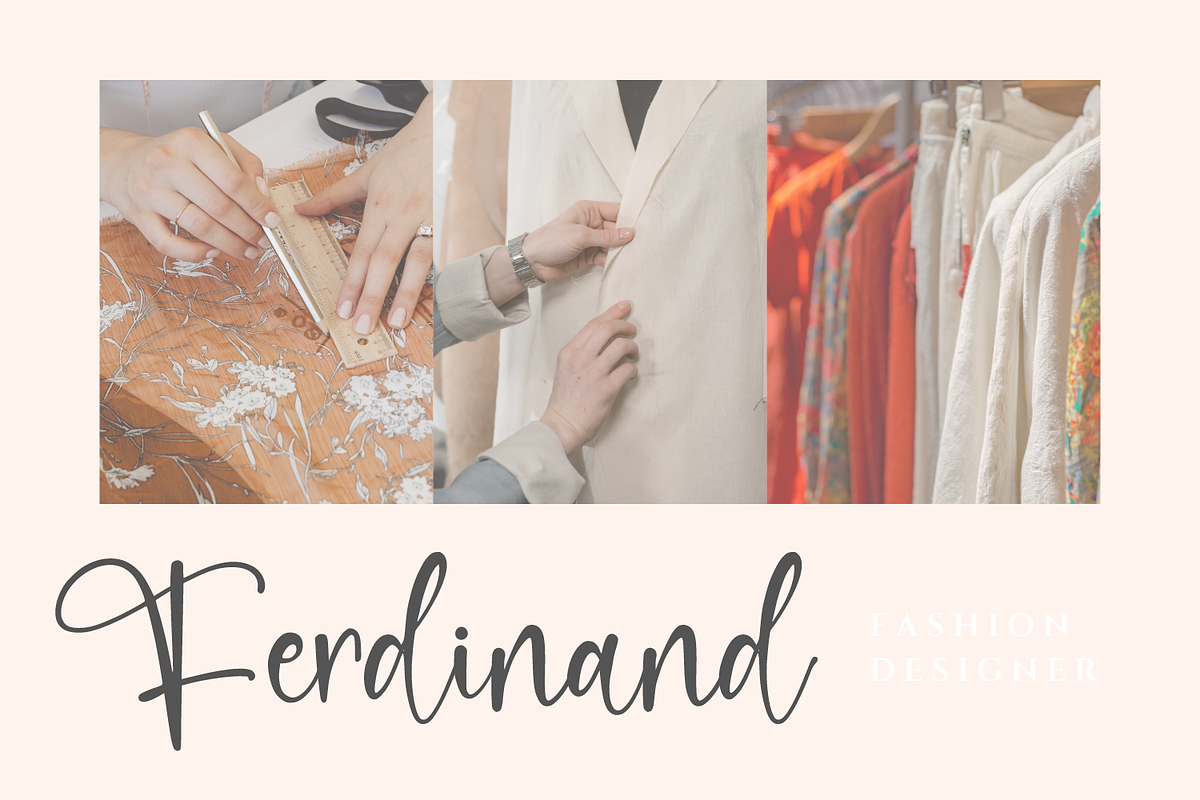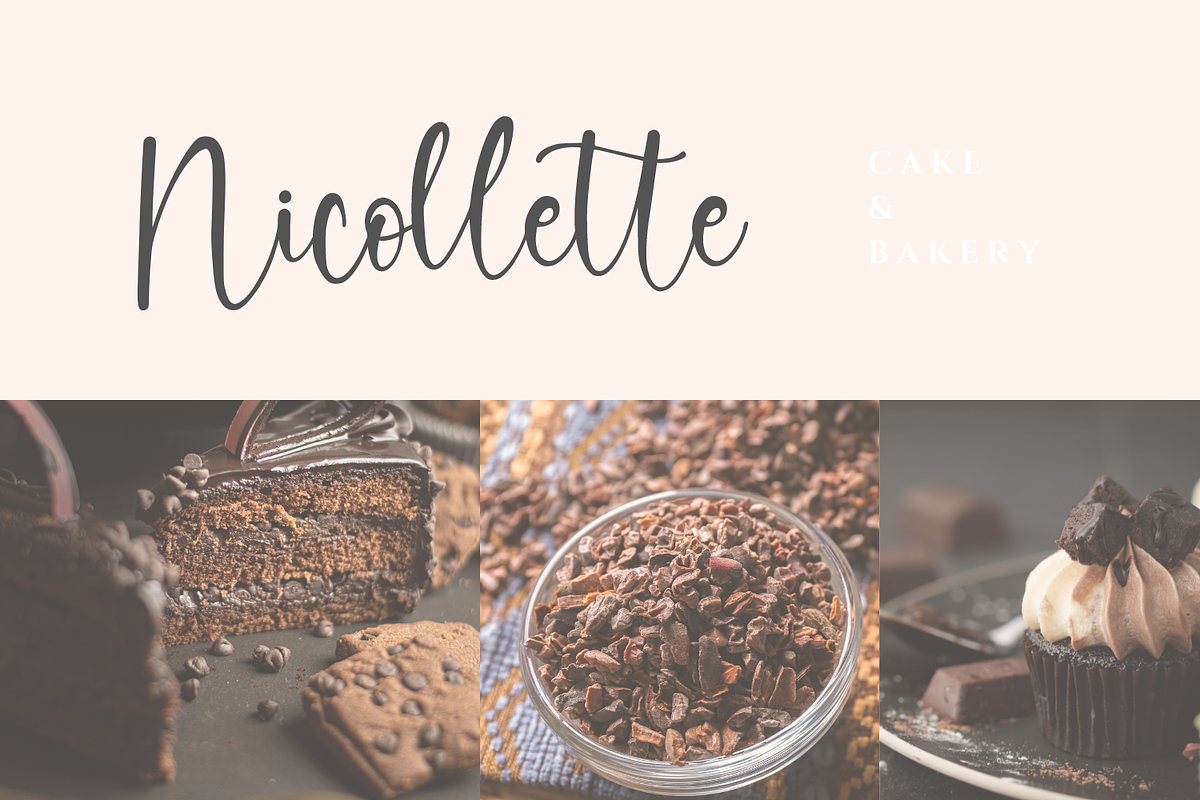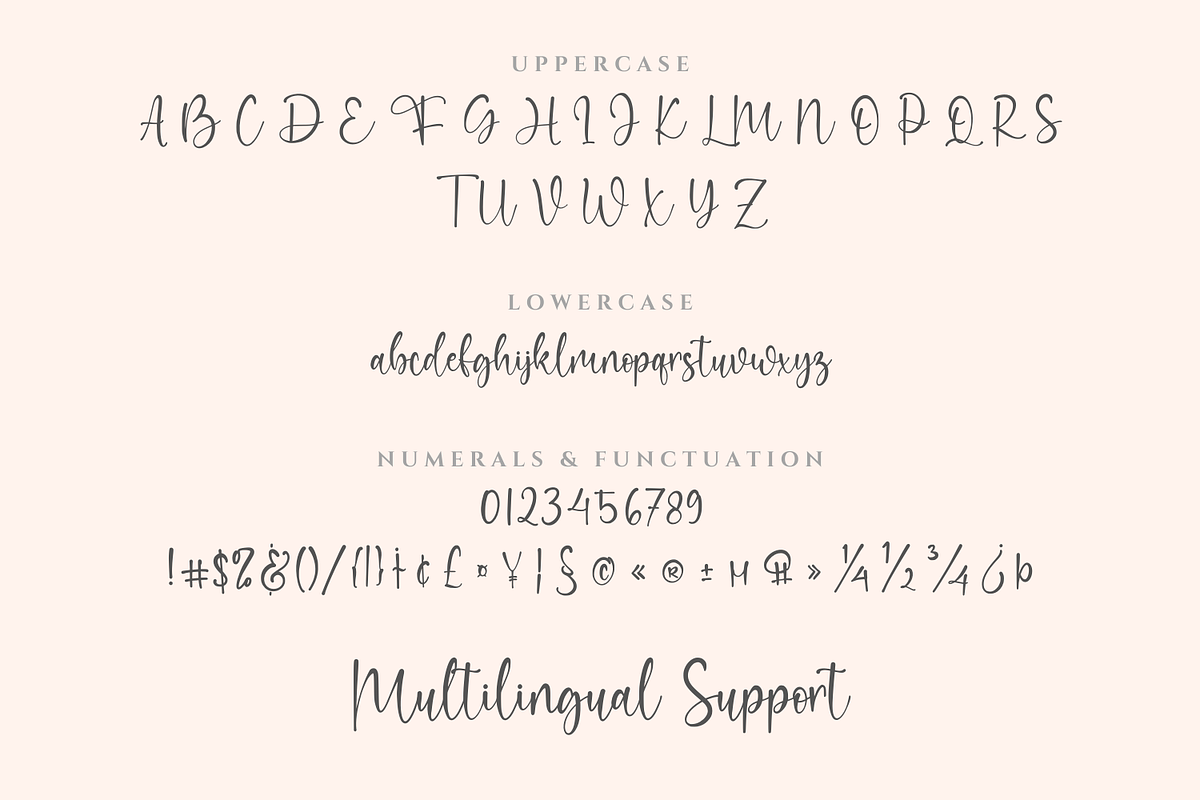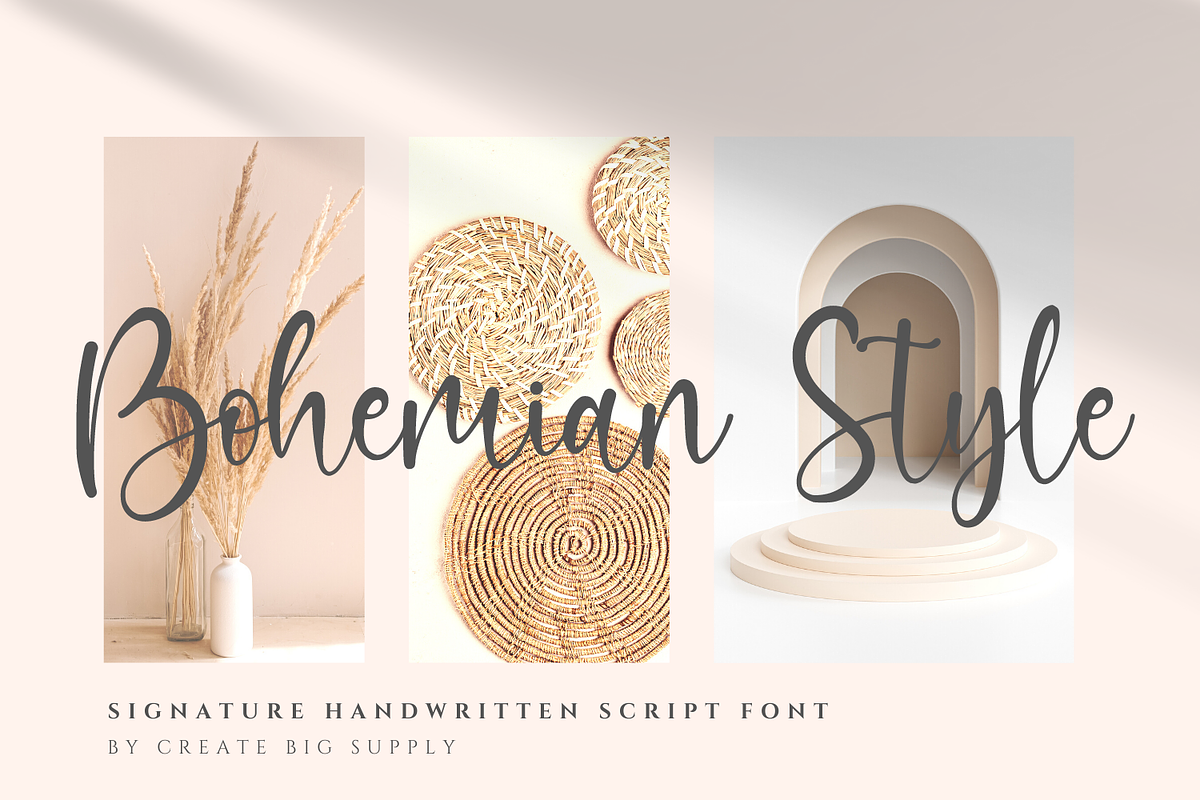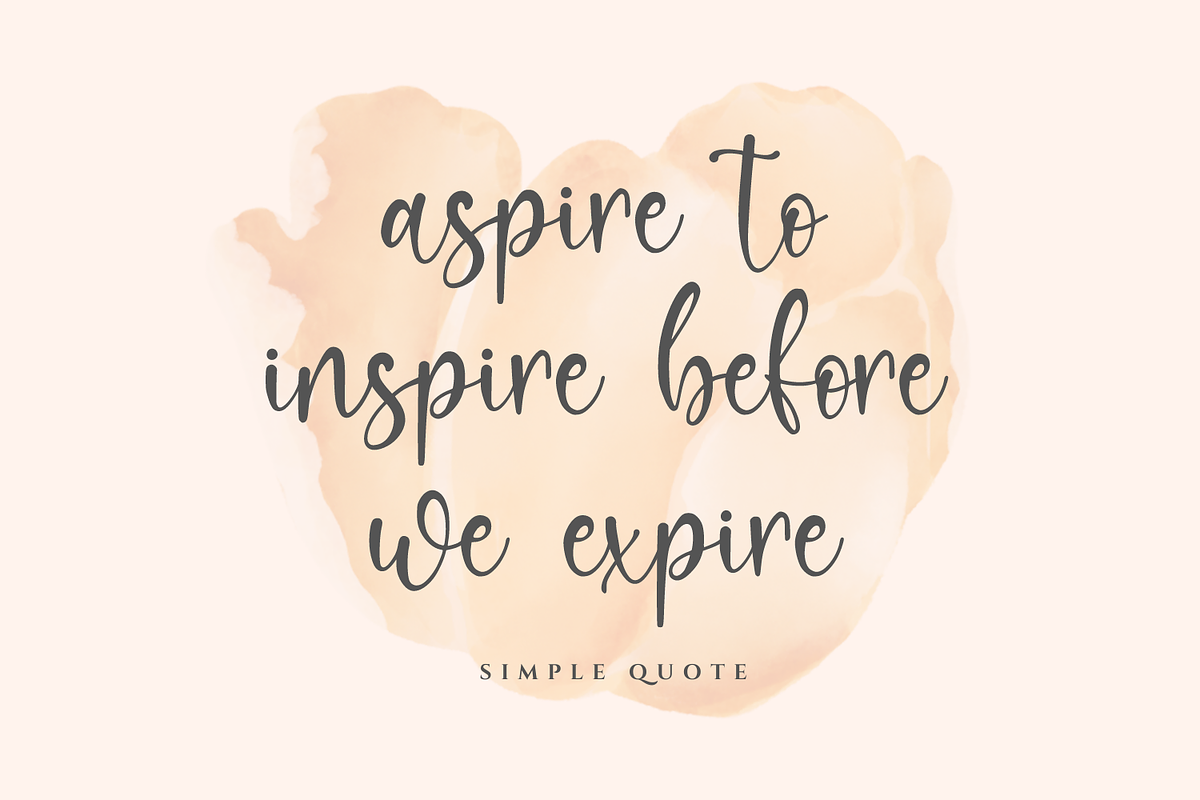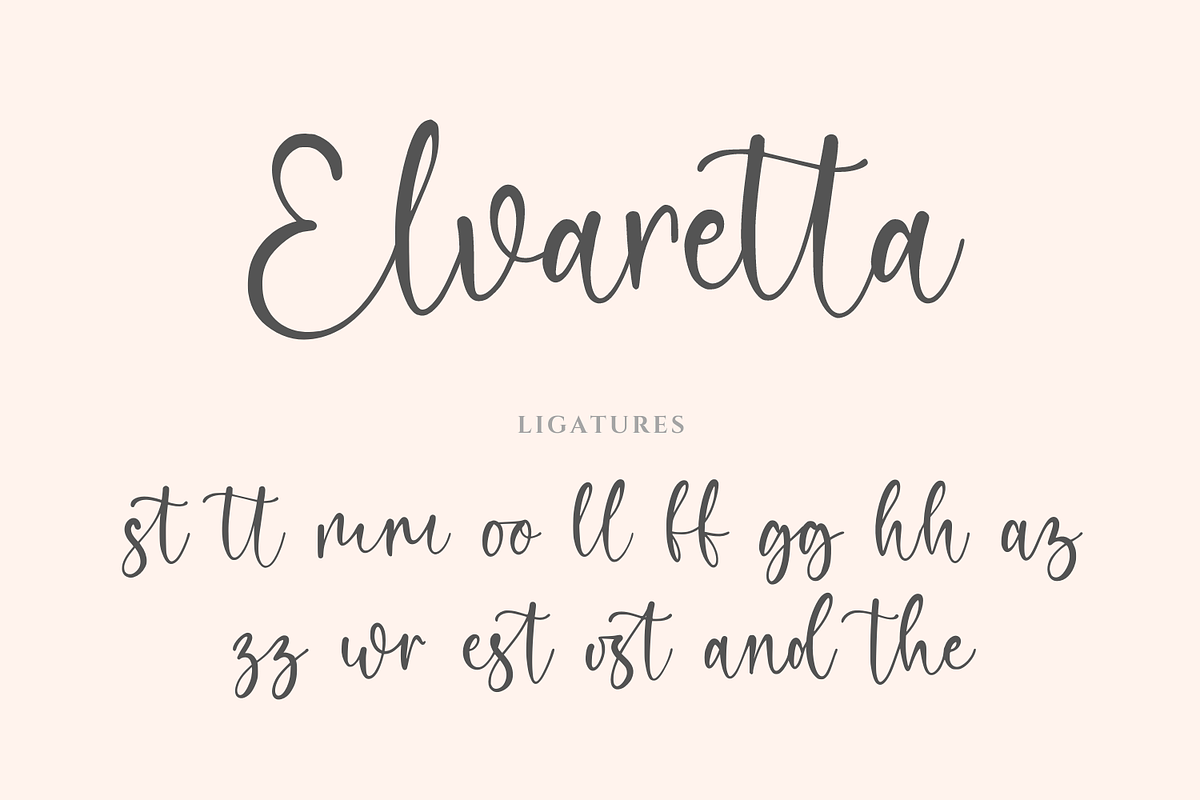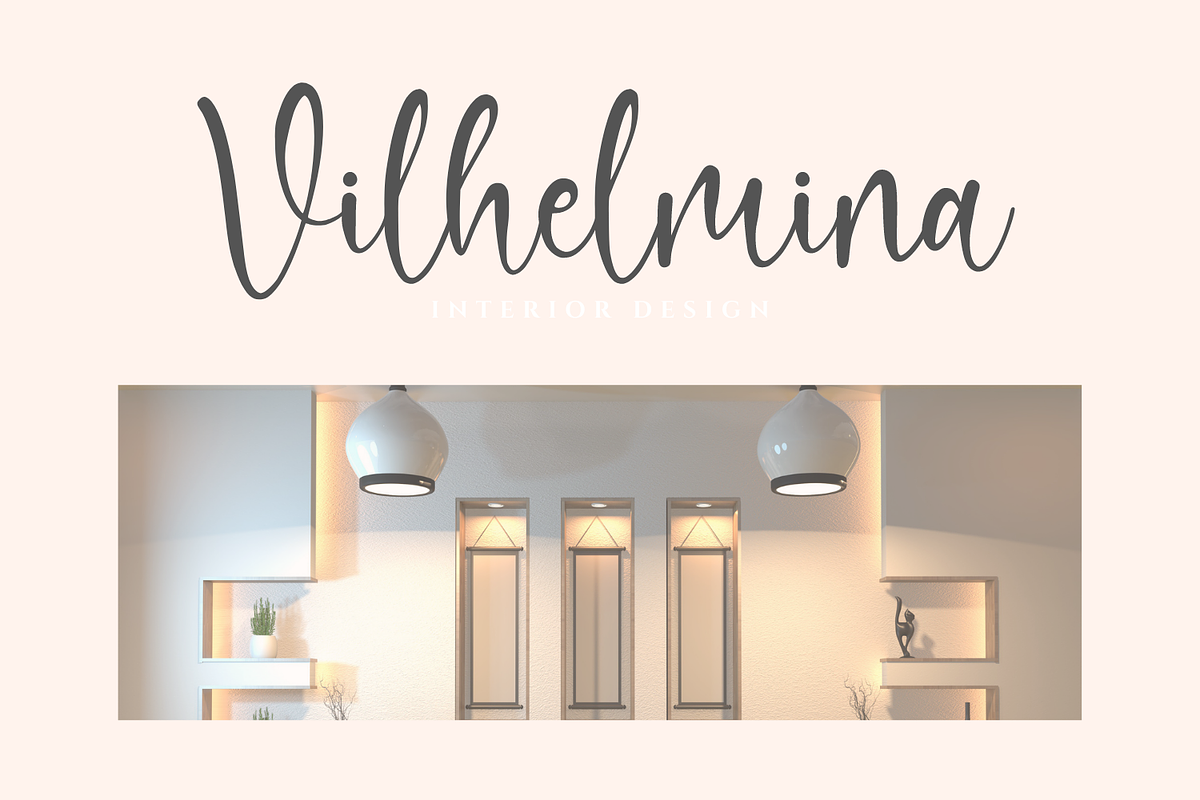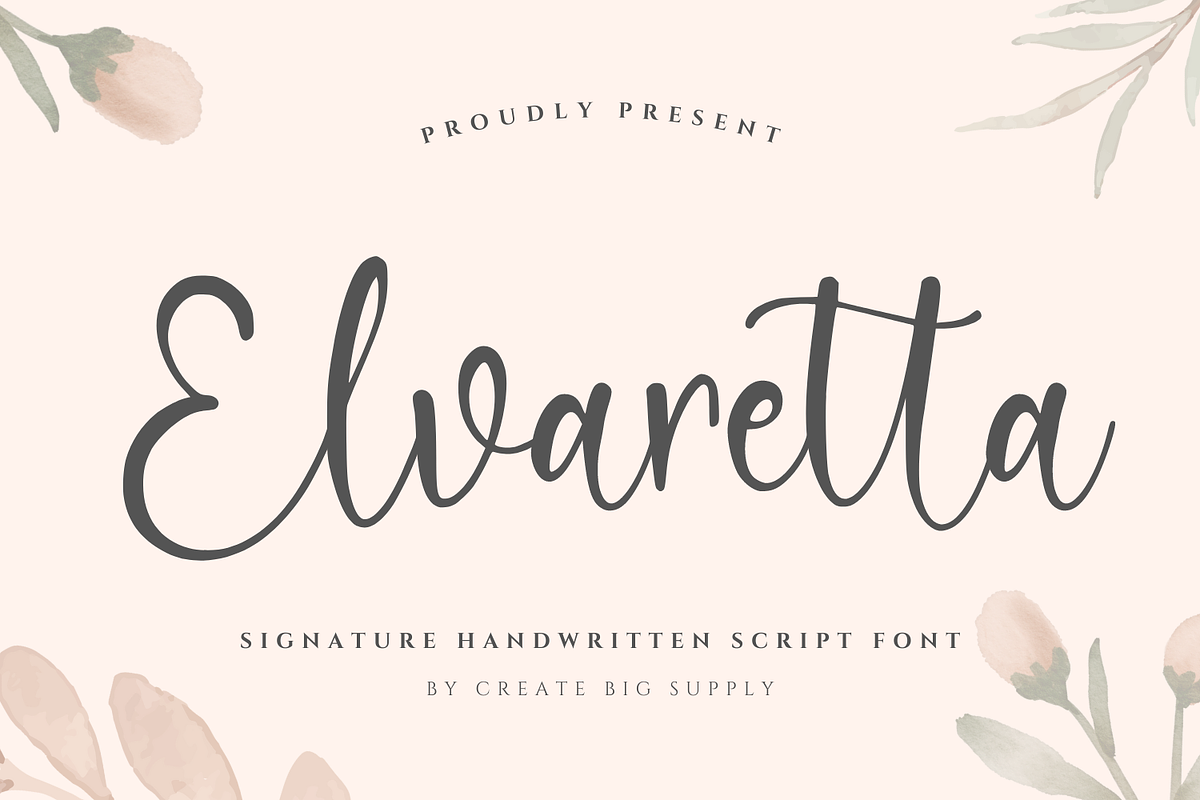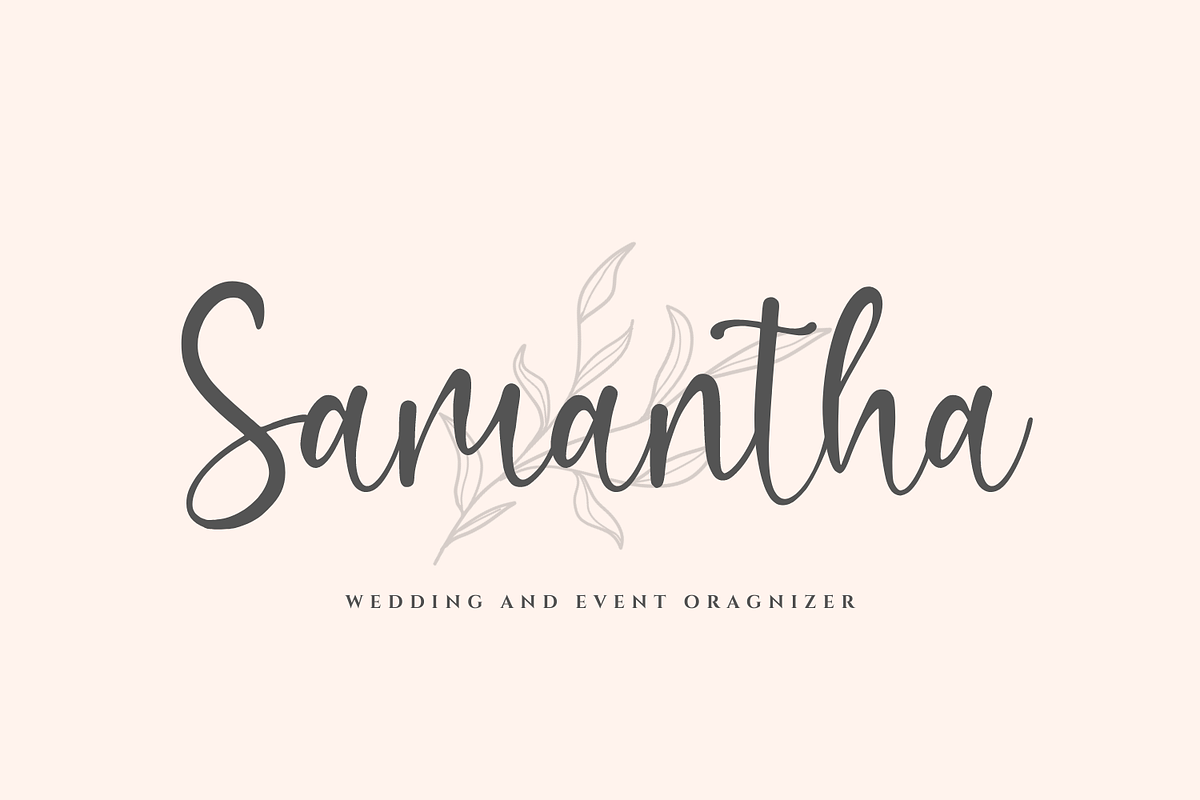
Elvaretta Script Handwriting
Elvaretta is an exquisite script handwriting font that brings a touch of elegance and sophistication to your creative projects. With its flowing and graceful letterforms, this font adds a sense of beauty and charm to any design. Whether you're working on invitations, branding materials, quotes, or any other typographic project, Elvaretta offers versatility and style. It includes both uppercase and lowercase letters, as well as numbers and punctuations, allowing you to create captivating compositions. The font is also multilingual, ensuring seamless communication across different languages and cultures. Additionally, it features PUA encoding, making it easy to access special characters and symbols. Elevate your designs with Elvaretta and leave a lasting impression.